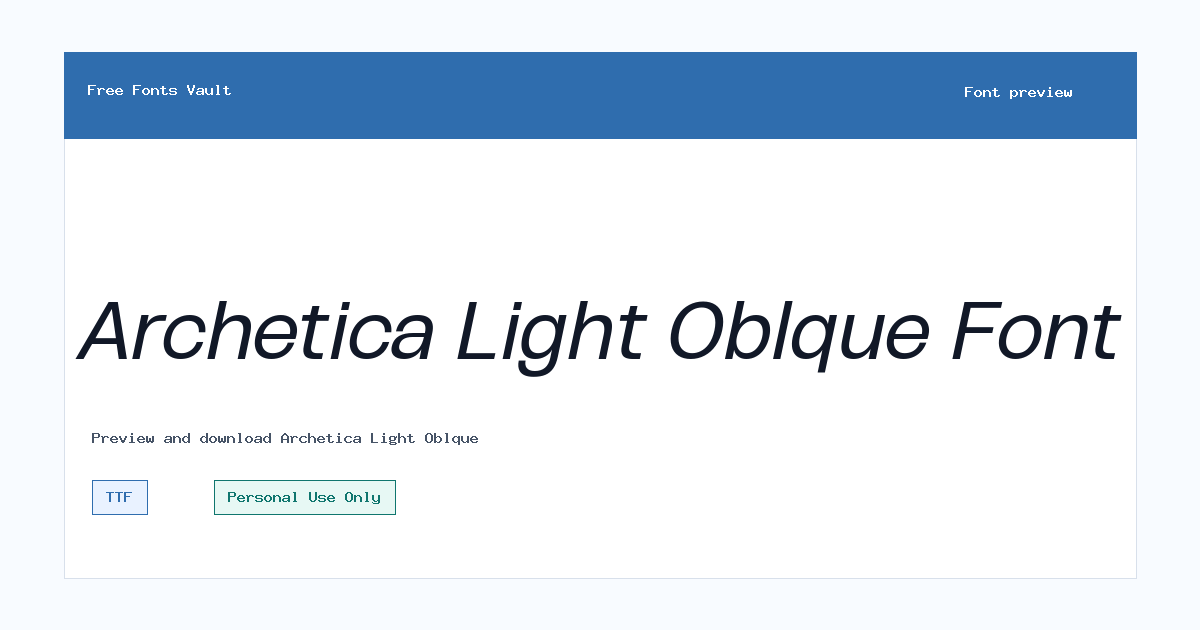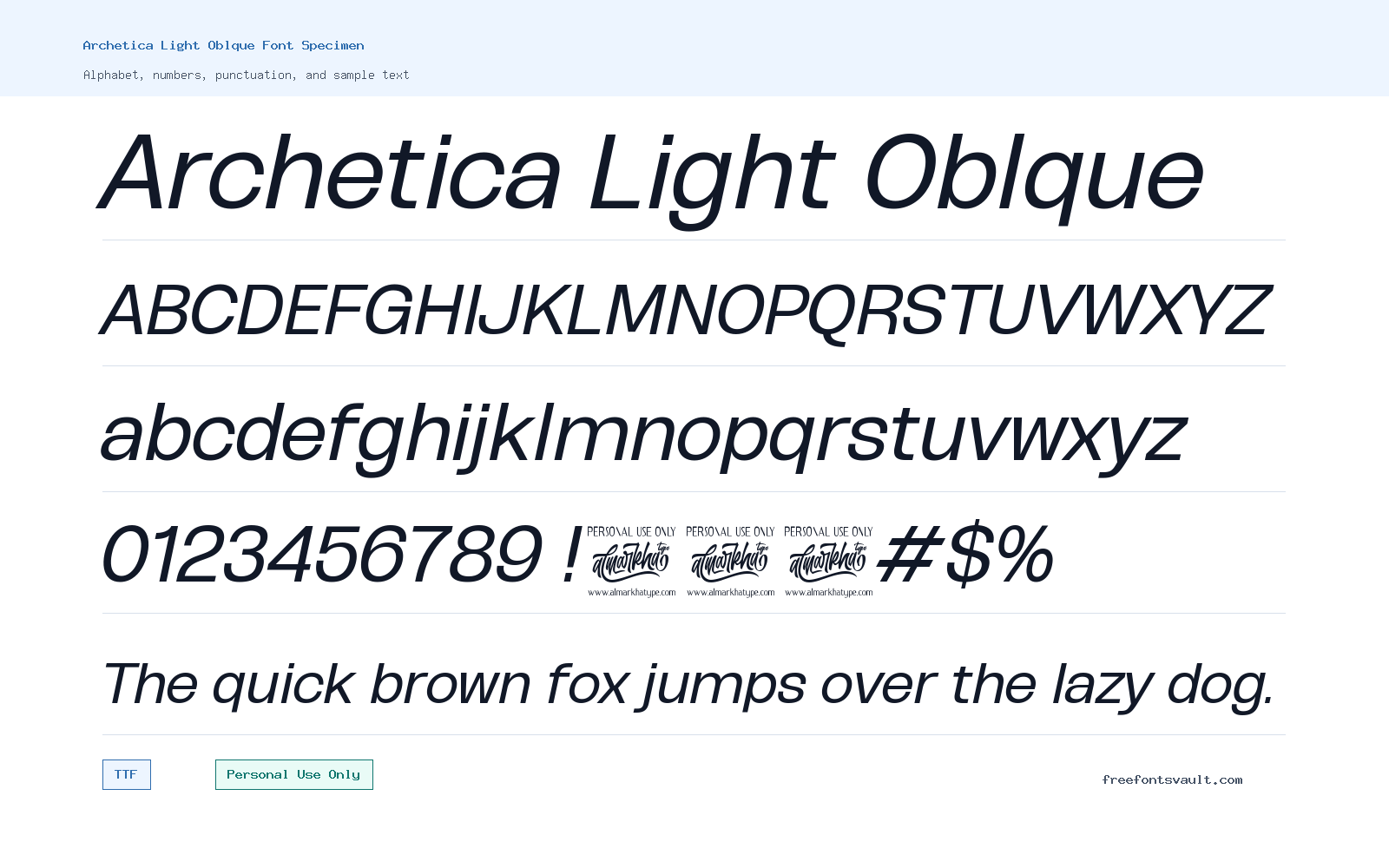
Archetica Light Oblque
Archetica Light Oblque is a light-weight oblique sans serif font from Almarkhatype. It is a good choice when you want a clean, slanted style for previews, personal projects, and design experiments without making the typography feel too heavy.
About Archetica Light Oblque
Archetica Light Oblque has the basic character of a modern sans serif, with a lean weight and an angled posture. The light weight gives it a quieter look than a bold display face, while the oblique style adds motion and direction. That combination can work well for headings, short labels, fashion-style layouts, editorial mockups, portfolio graphics, and poster text where you want the words to feel refined rather than loud. Because the available style is light, it is best used at sizes where the strokes stay clear. Very small body text, low-contrast backgrounds, or compressed layouts may make the thin forms harder to read.
For designers, this font is most useful as a clean accent style. Try it in the preview tool with short phrases first: a brand name, a section title, a quote, a product label, or a few words for a social post. The oblique angle can help a layout feel more active, but it should usually be paired with a steadier upright font for longer reading. In a logo concept, it may suit early personal mockups, but the license limit matters before any real client or commercial use. For posters and web mockups, give the letters enough spacing and contrast so the light strokes do not disappear. If you are building a full visual system, pair it with a neutral sans serif for paragraphs, navigation, and supporting copy, then use Archetica Light Oblque for emphasis.
- Light-weight sans serif style with an oblique slant, useful for refined headings, short display text, and visual accents.
- Best suited to short text settings where the thin strokes can remain visible and the angled style can add gentle movement.
- Works well as a contrast style beside a simple upright sans serif, especially in posters, portfolio layouts, web mockups, and personal branding drafts.
- Personal design projects and typography experiments
- Logo concept mockups where licensing is checked before real use
- Posters, covers, and editorial-style headings
- Website hero text, section titles, and landing page mockups
- Fashion, portfolio, and product presentation graphics
- Short quote graphics or social media layouts
Use Archetica Light Oblque where a light, slanted sans serif can act as an accent rather than the main reading font. It should be tested at the exact size and background color you plan to use, because thin oblique letters can lose clarity when used too small or placed over busy images. For web mockups, try it in hero headings or feature labels, then use a more regular upright sans serif for paragraphs and interface text. For logo drafts, test the wordmark in black, white, and one-color versions so you can see whether the light strokes hold up. For posters, increase size and spacing before adding effects, shadows, or texture.
What kind of font is Archetica Light Oblque?
It is a light oblique sans serif style. The thin weight gives it a clean, restrained look, while the slant adds movement for short display text.
Is it good for body text?
It is better for short text than long reading. The light weight and oblique angle may become tiring or less clear in paragraphs, especially at small sizes.
What should I pair it with?
Pair it with a neutral upright sans serif for body copy and interface text. Let Archetica Light Oblque handle headings, labels, pull quotes, or accent words.